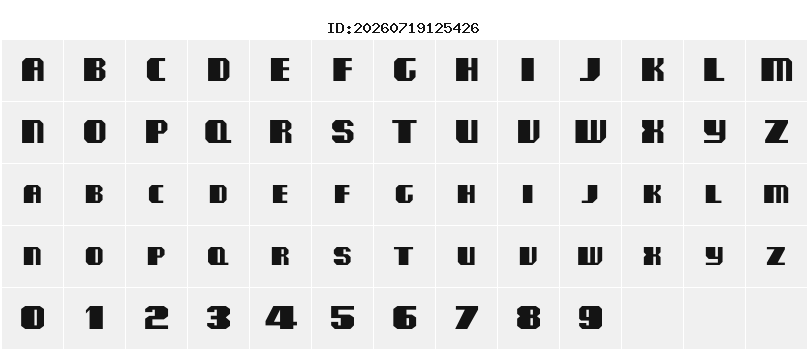
ClubMF Preview
• Font Name: ClubMF
• Full Font Name: ClubMF
About ClubMF.ttf
ClubMF.ttf is a modern, elegant sans-serif font designed for ultimate readability and visual harmony. Perfect for branding, headlines, web design, and print materials.